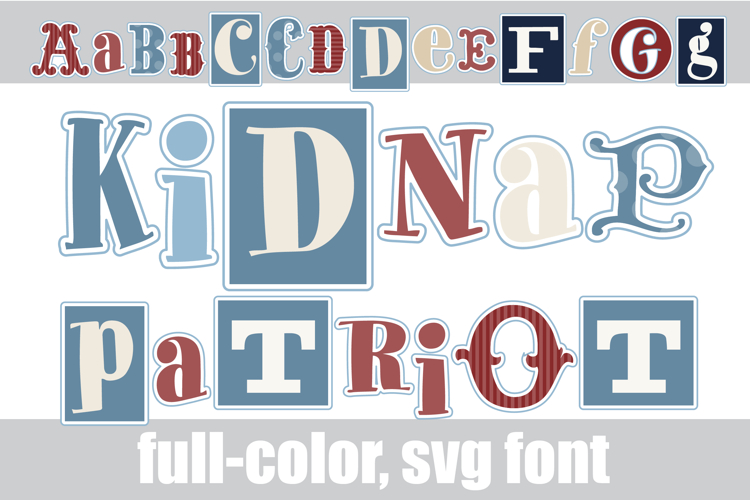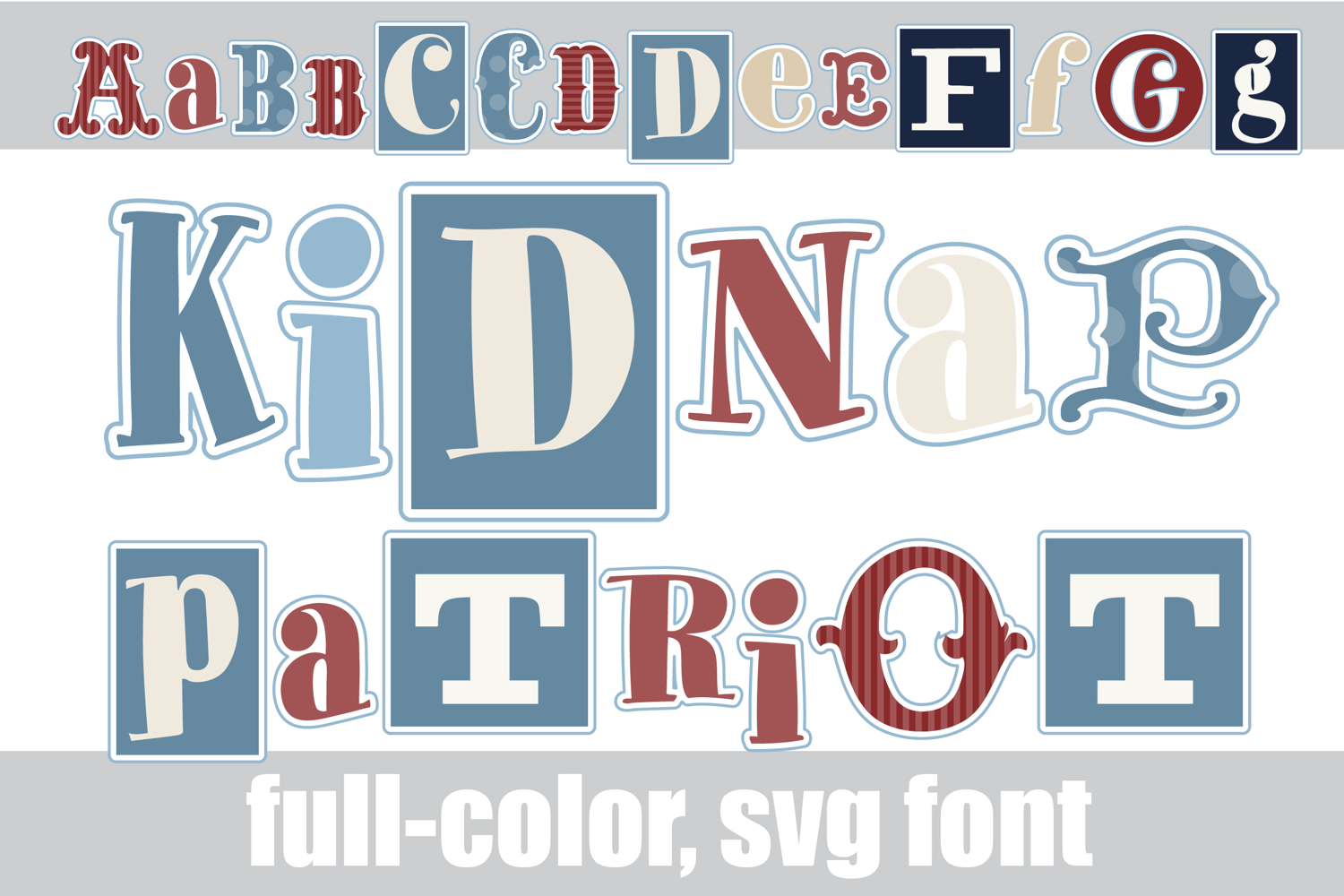
Kidnap Patriot Color Font
This full-color, ransom-style font is in a patriotic color palette. There is an alt case of additional colors of each letter that you can access through your system's character map.